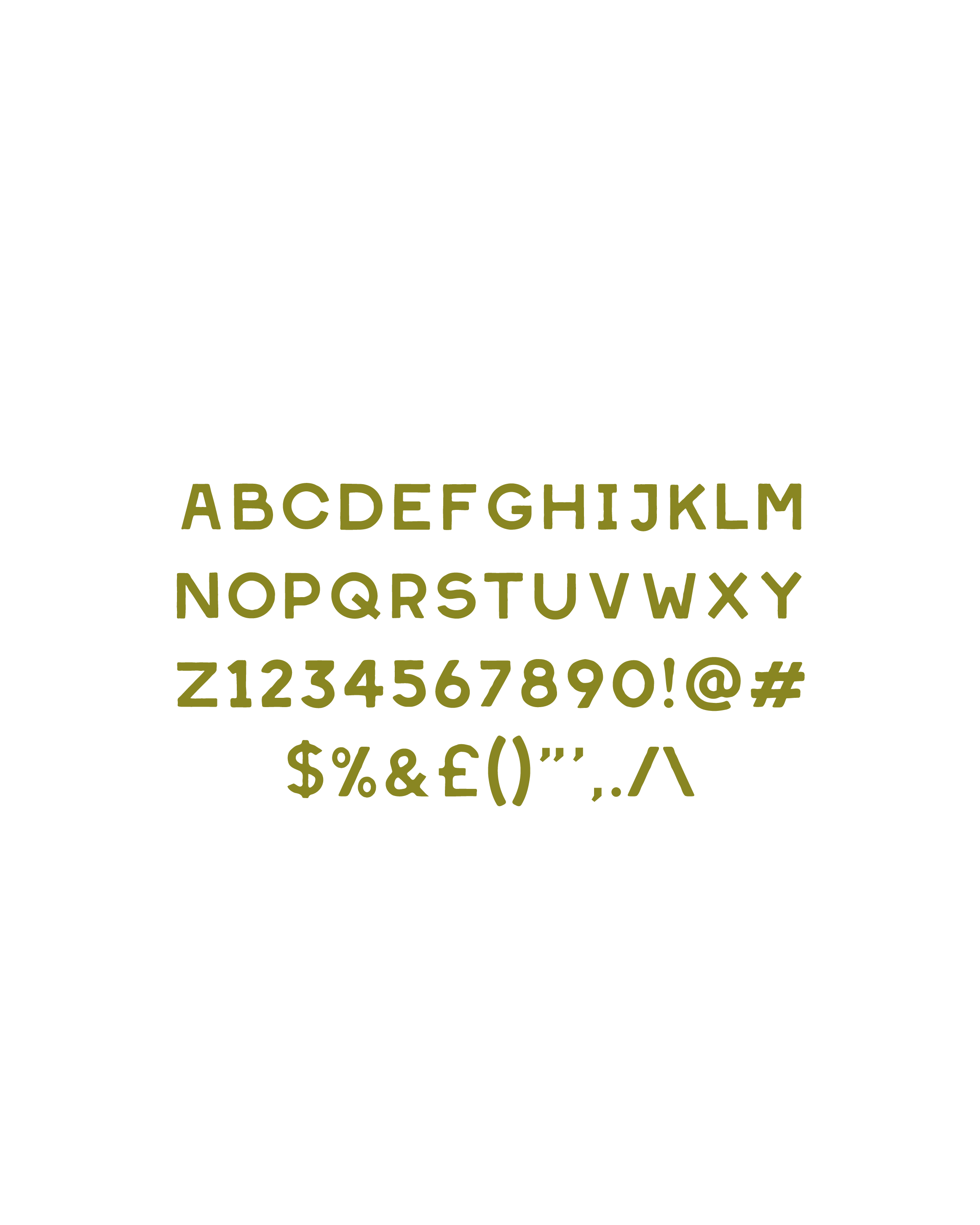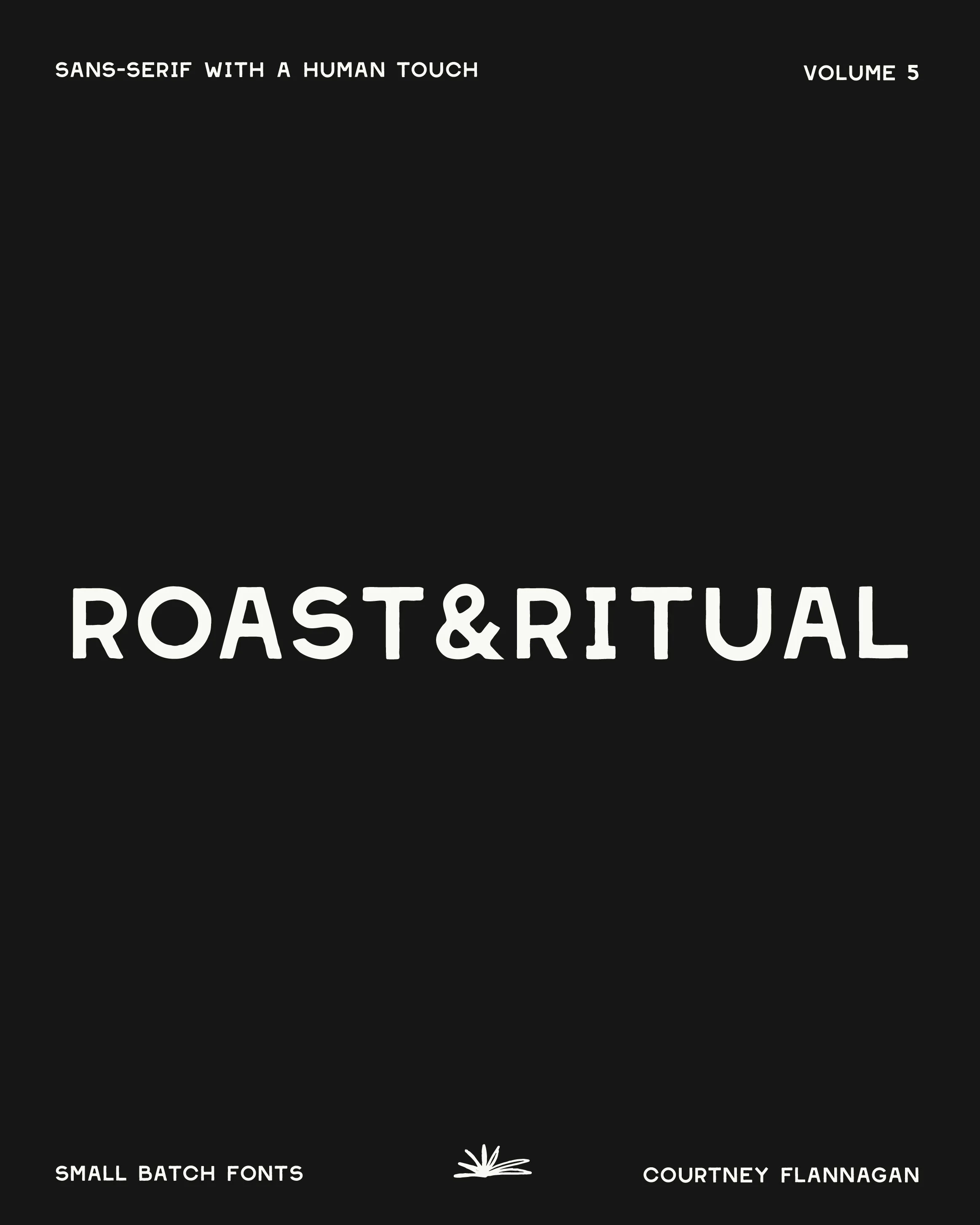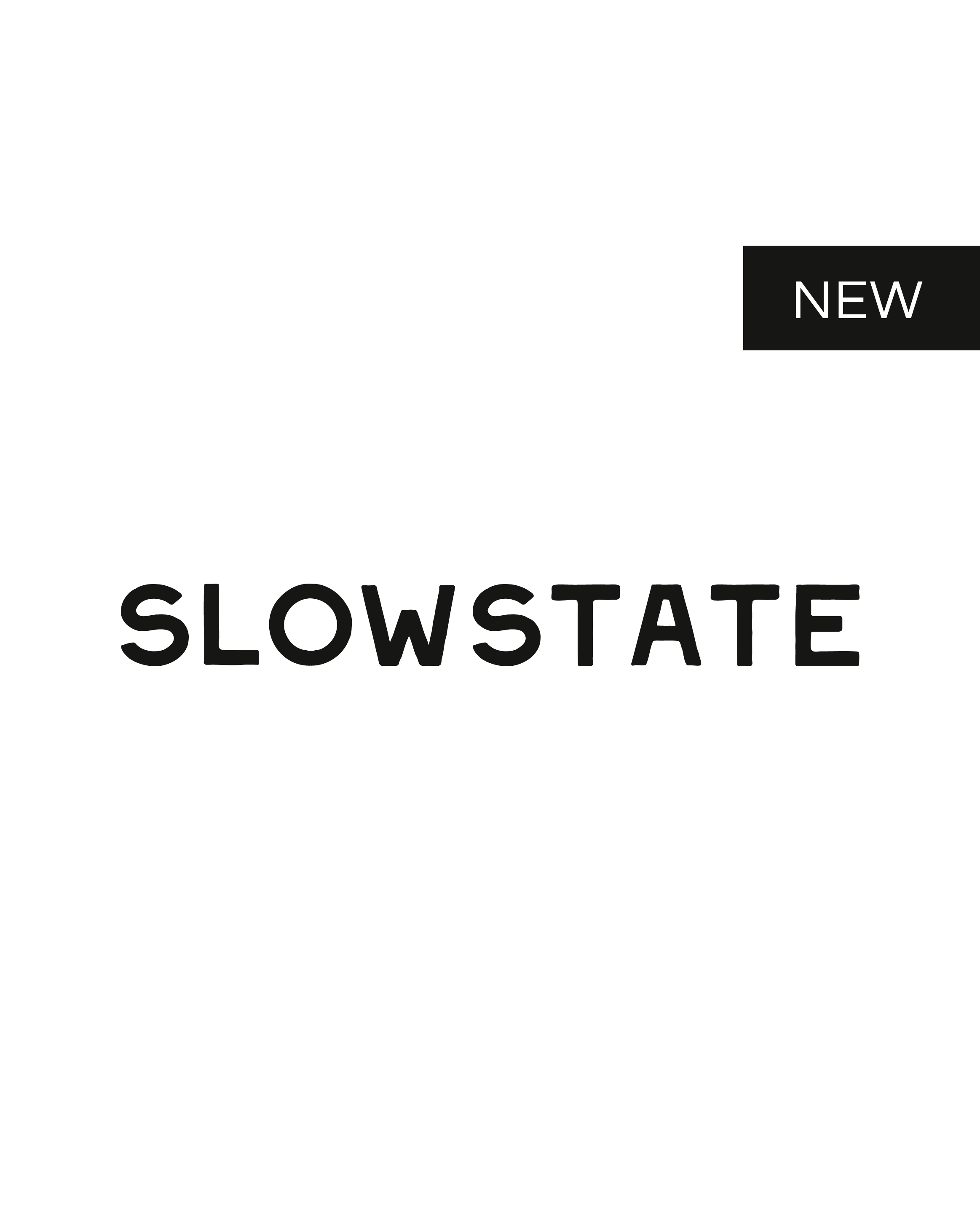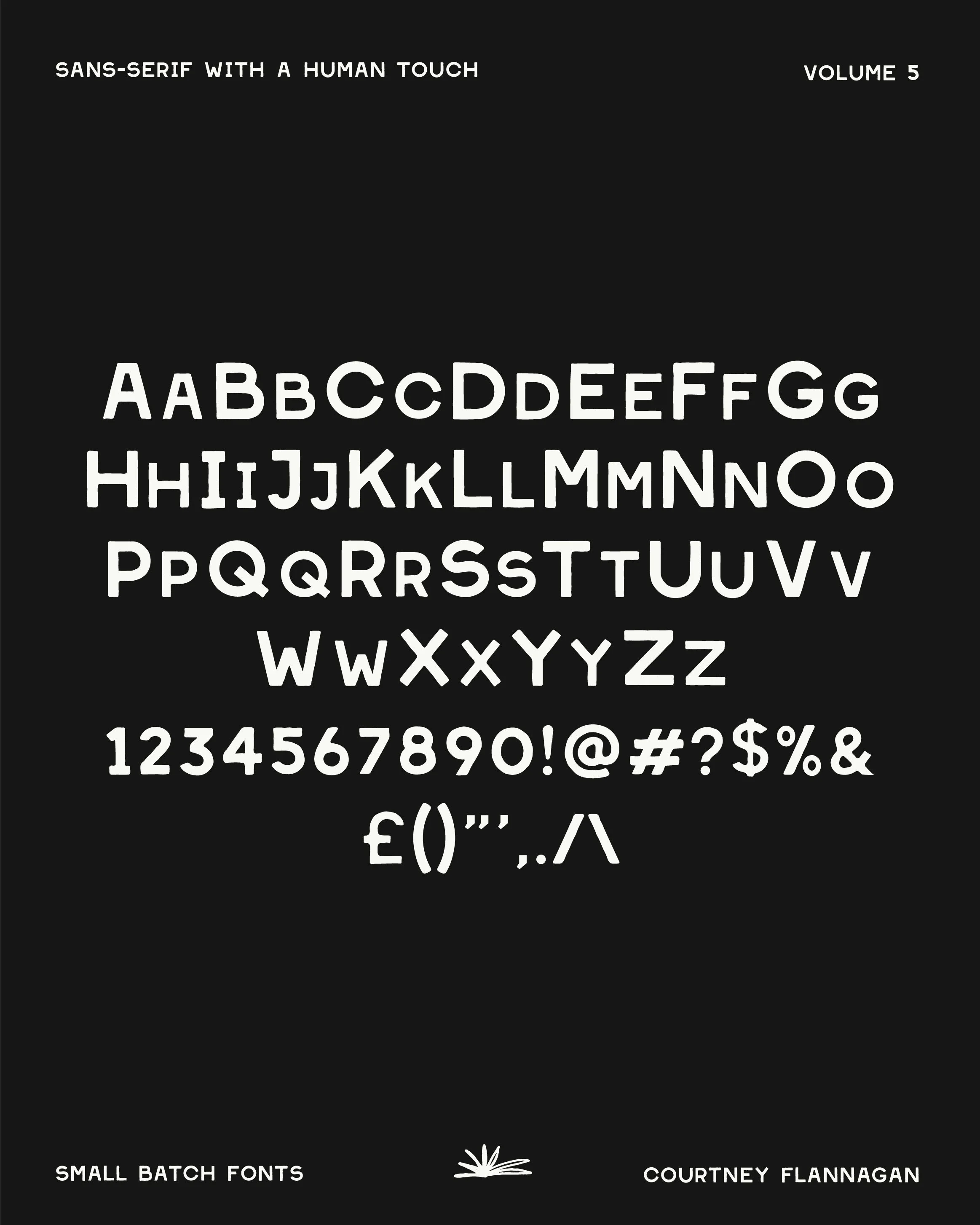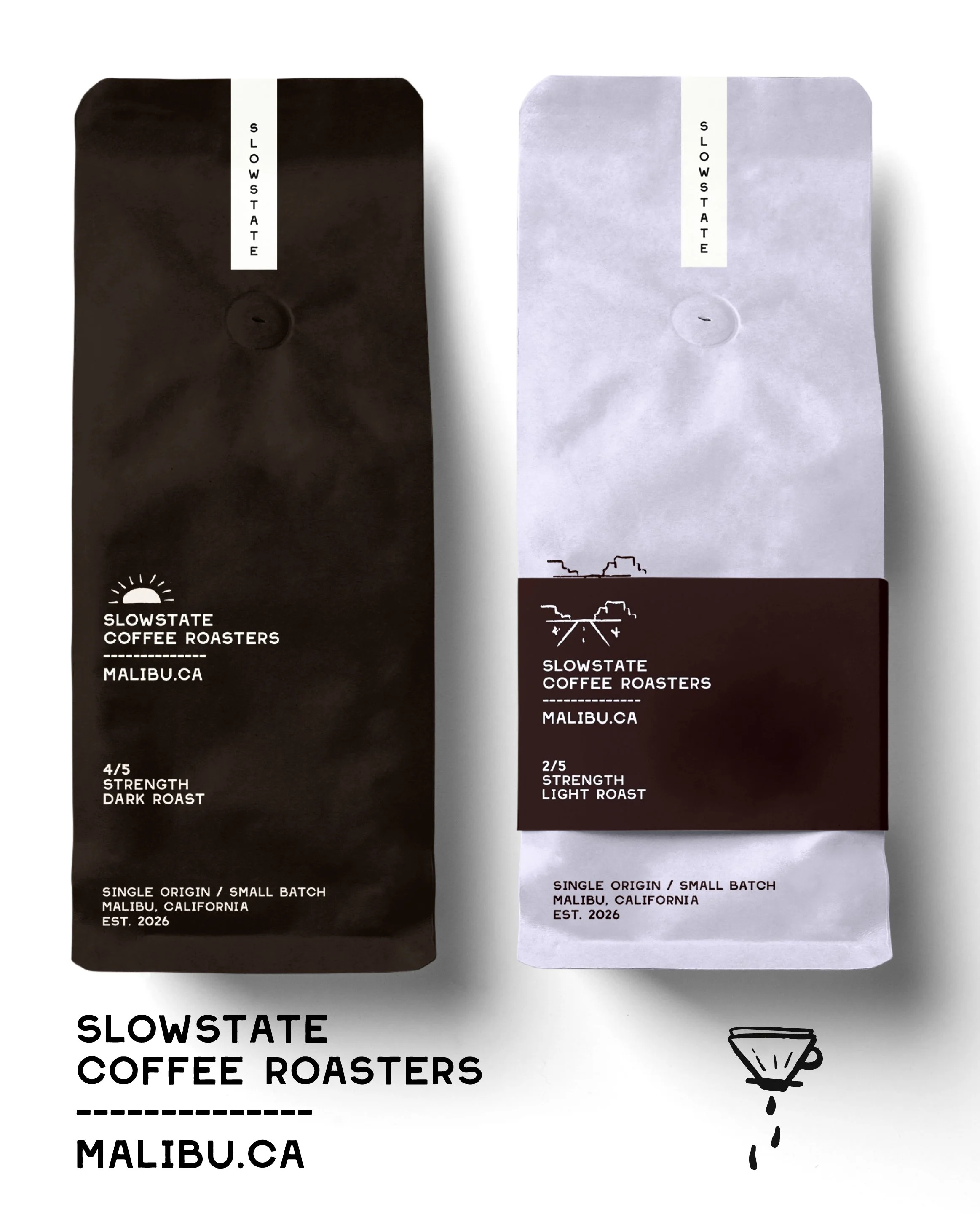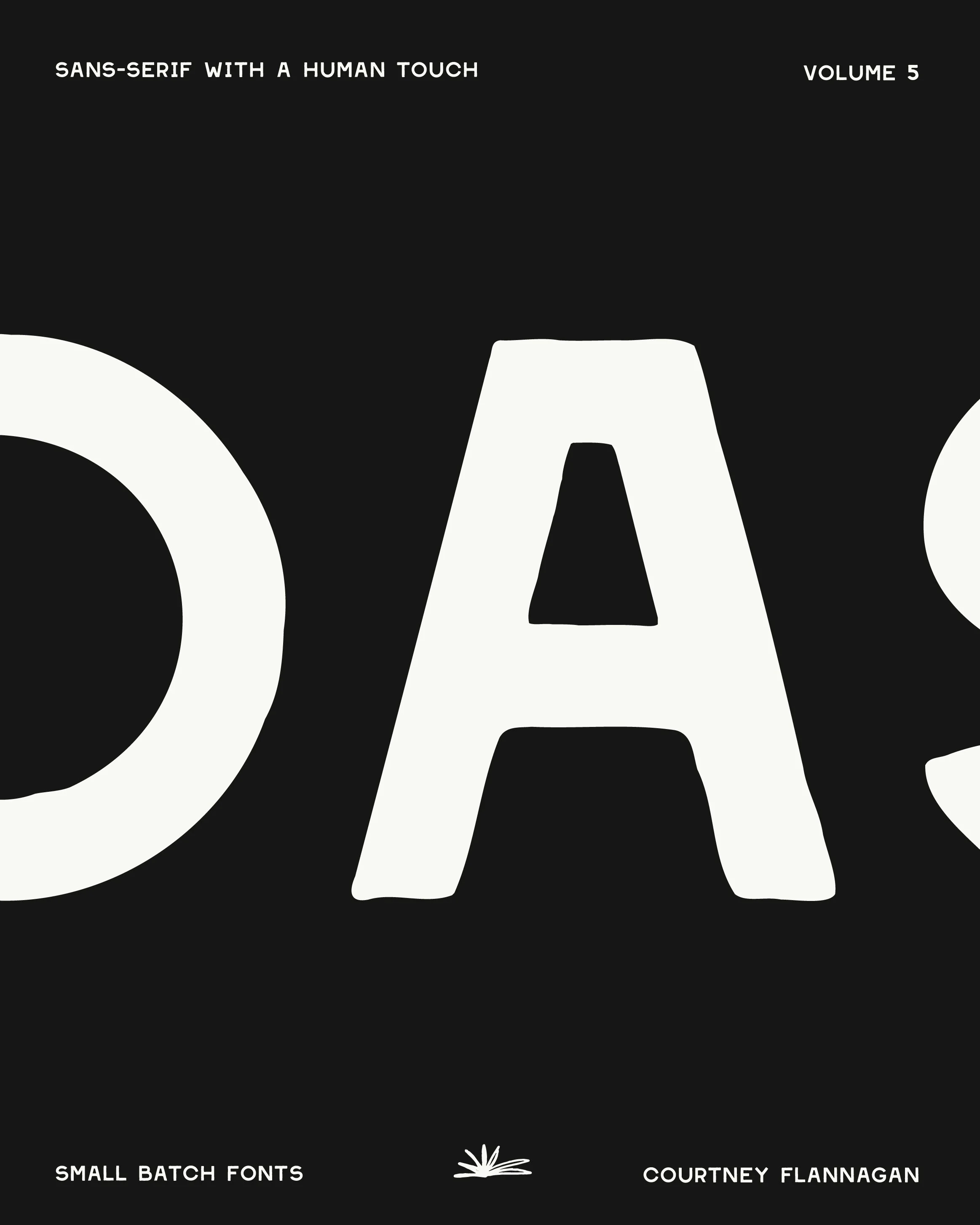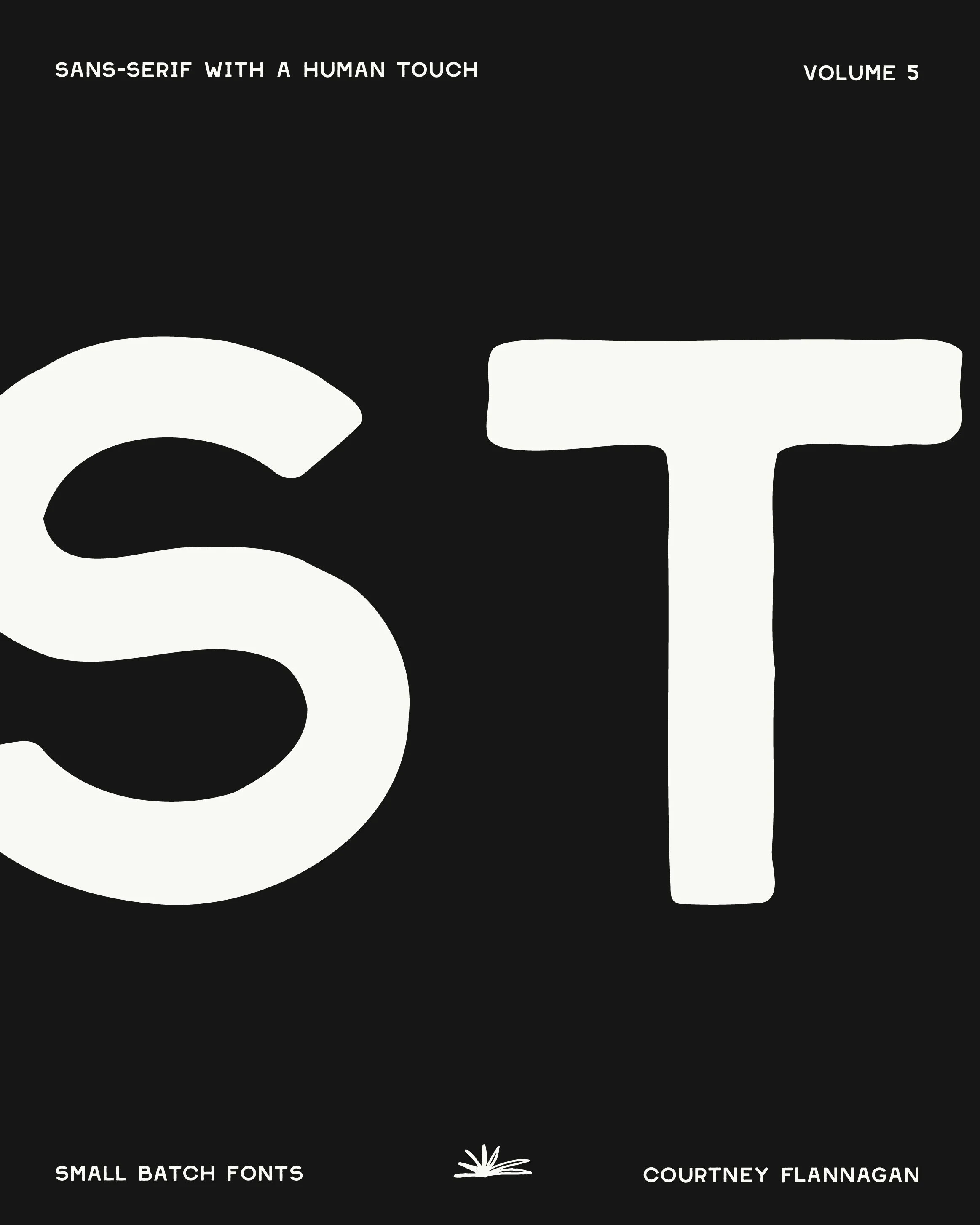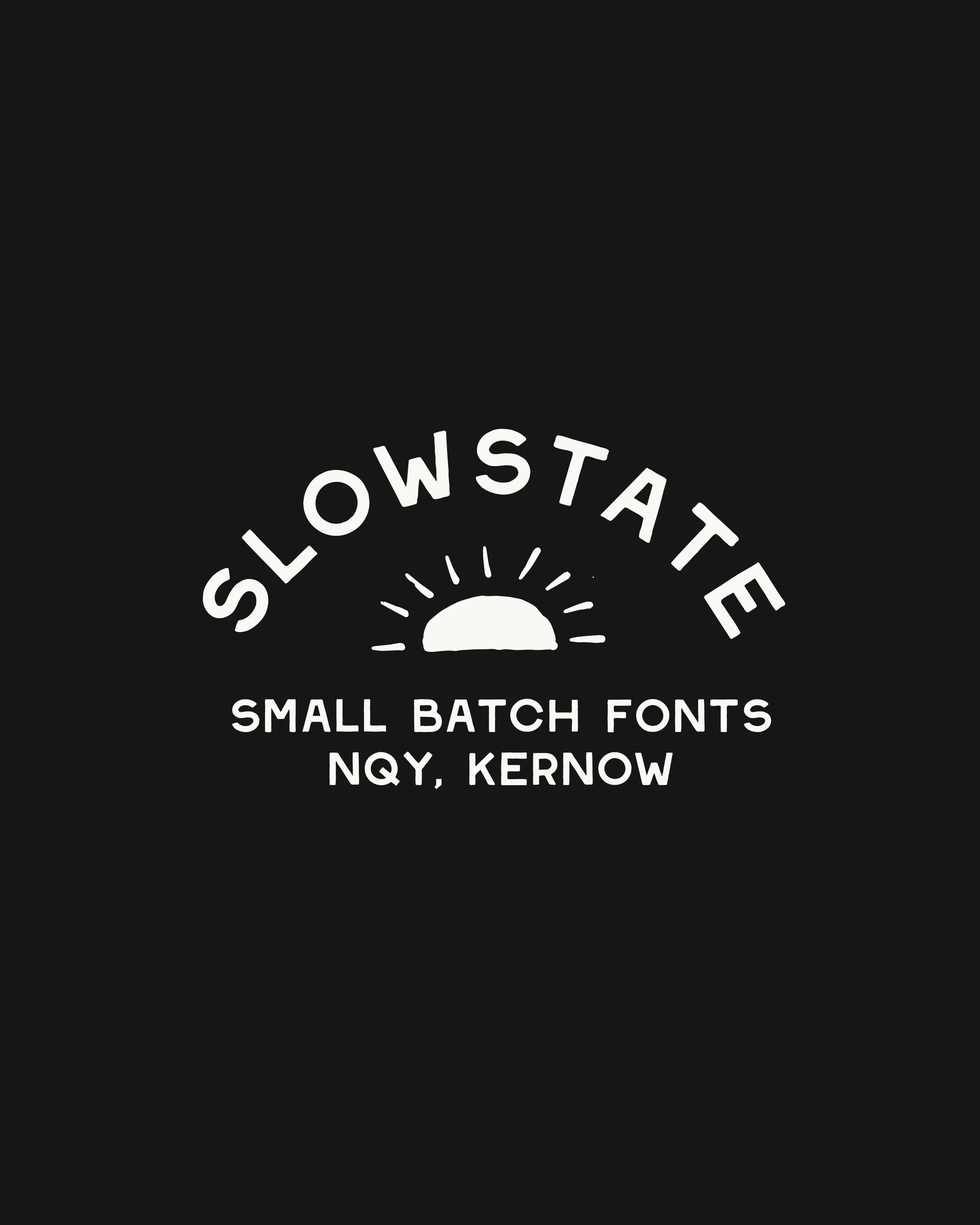
Hey, it’s Court. I’ve been sitting on this one for a minute.I built Slowstate because I was tired of "perfect" geometric fonts feeling cold in my luxury branding projects. Most of the time, the high-end roasteries and boutique hotels we’re designing for don’t want a machine-made look—they want a human soul.Slowstate is an all-caps display face that balances a solid geometric foundation with the subtle, intentional "wobble" of a professional chalk pen. It’s the visual language of the modern West Coast: steady, bold, and intentionally unrefined.Grab it, play with it, and let me know what you build.